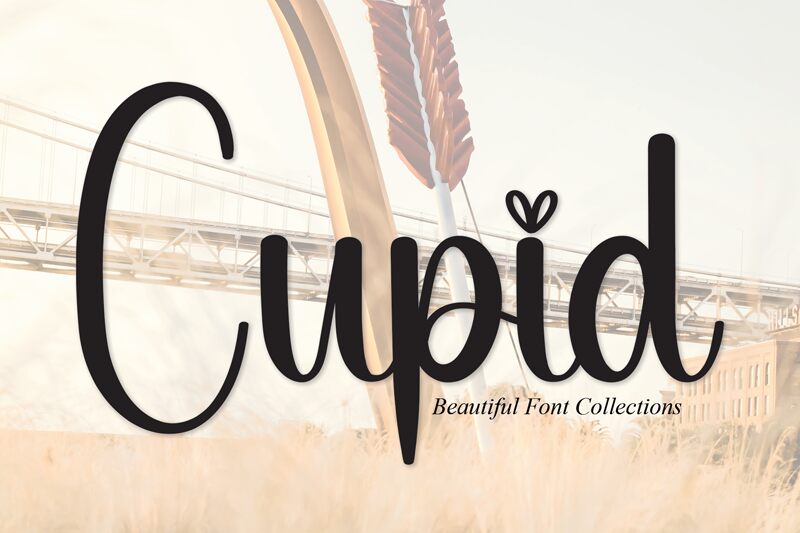
Cupid
Cupid, a creation by Scratchones, is a font that embodies the spontaneity and fluidity of hand-painted artistry. Its brush style strokes convey a sense of personal touch and warmth, reminiscent of heartfelt letters and intimate invitations. Each character in this font dances with an effortless grace, suggesting movement and a playful charm that captivates the eye.
In design contexts, Cupid thrives in settings that call for an organic, friendly feel—perfect for branding projects, editorial headers, or wedding stationery that demands an approachable yet elegant touch. Its whimsical nature also suits creative children's books or personalized merchandise where a dash of fun is essential. Cupid brings designs to life with its distinctive verve and loving finesse.